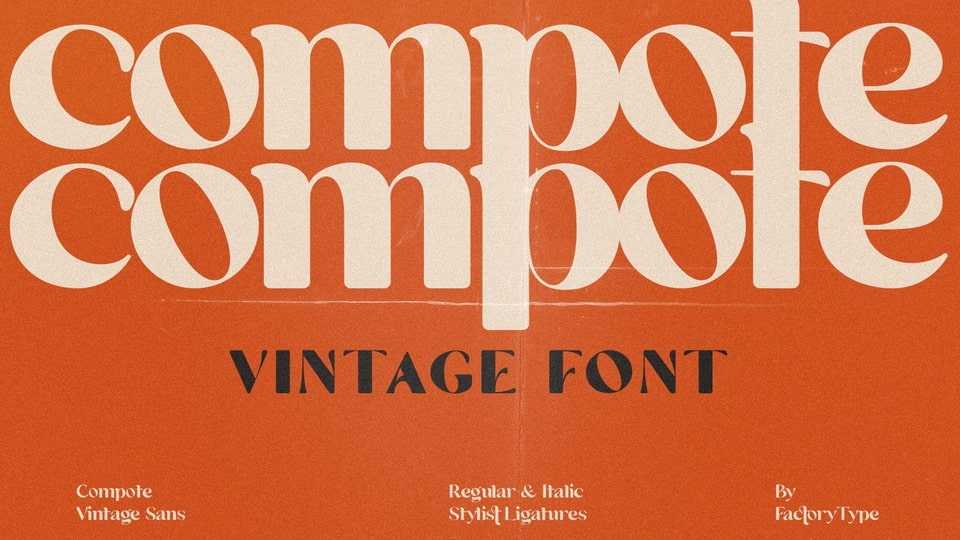
Download Compote font, a fashionable sans serif typeface that is both retro and sophisticated. Compote font pays homage to tradition, while the smooth curves evoke a 70s groovy vibe.
Designer: Factory Type